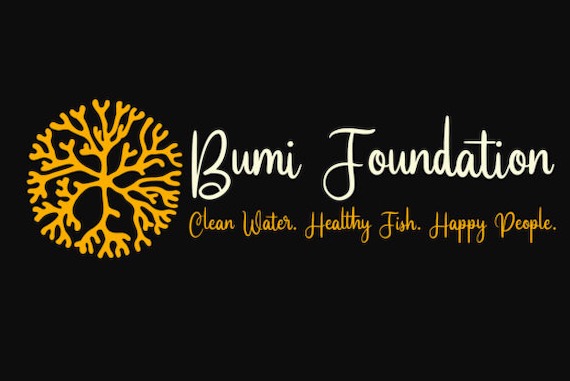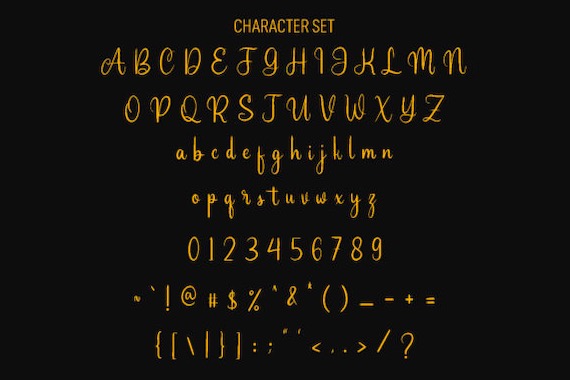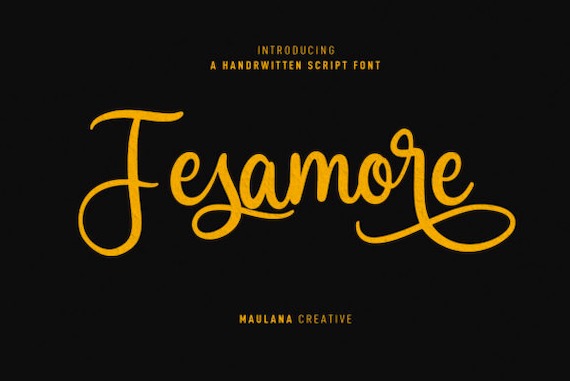
Fesamore Script Font
Fesamore is an elegant handwritten Script font that was created and shared by Maulana Creative. This is a cursive and fancy script font. Moreover, it features alternates, ligatures, fun characters, and light contrast strokes. Fesamore will look extraordinary in a variety of contexts.